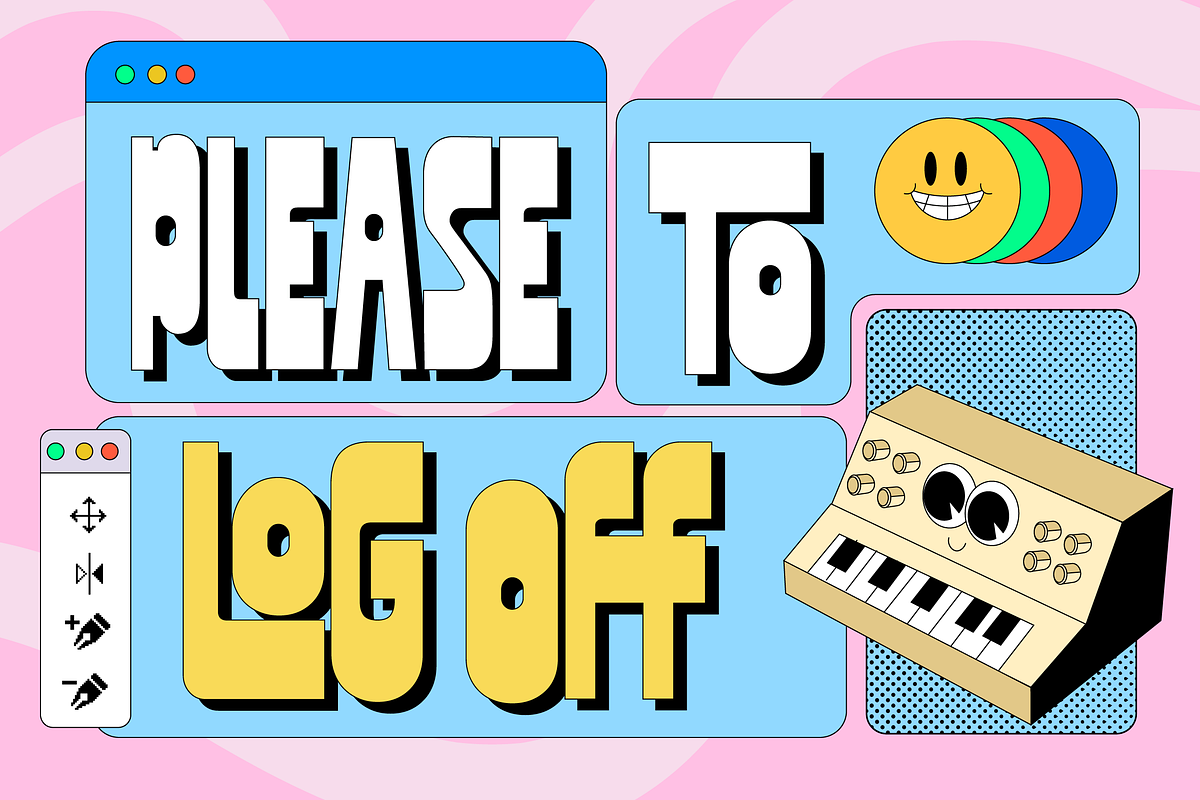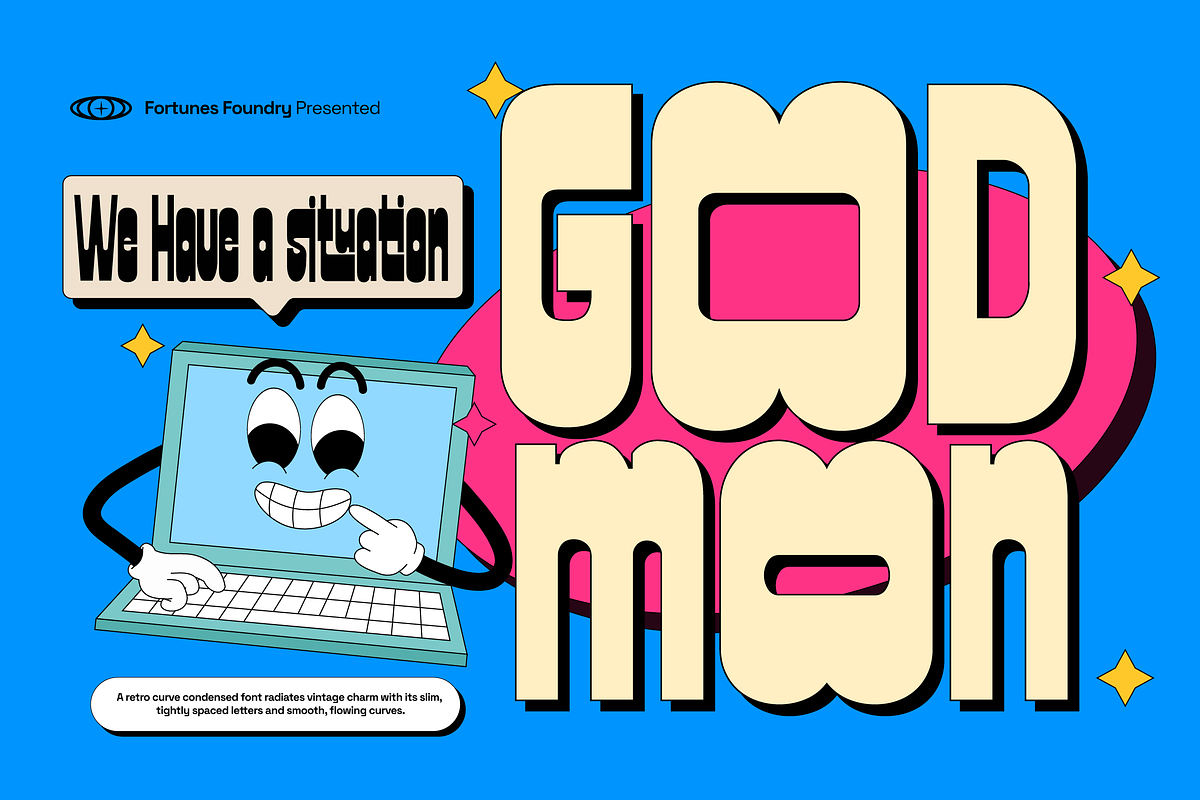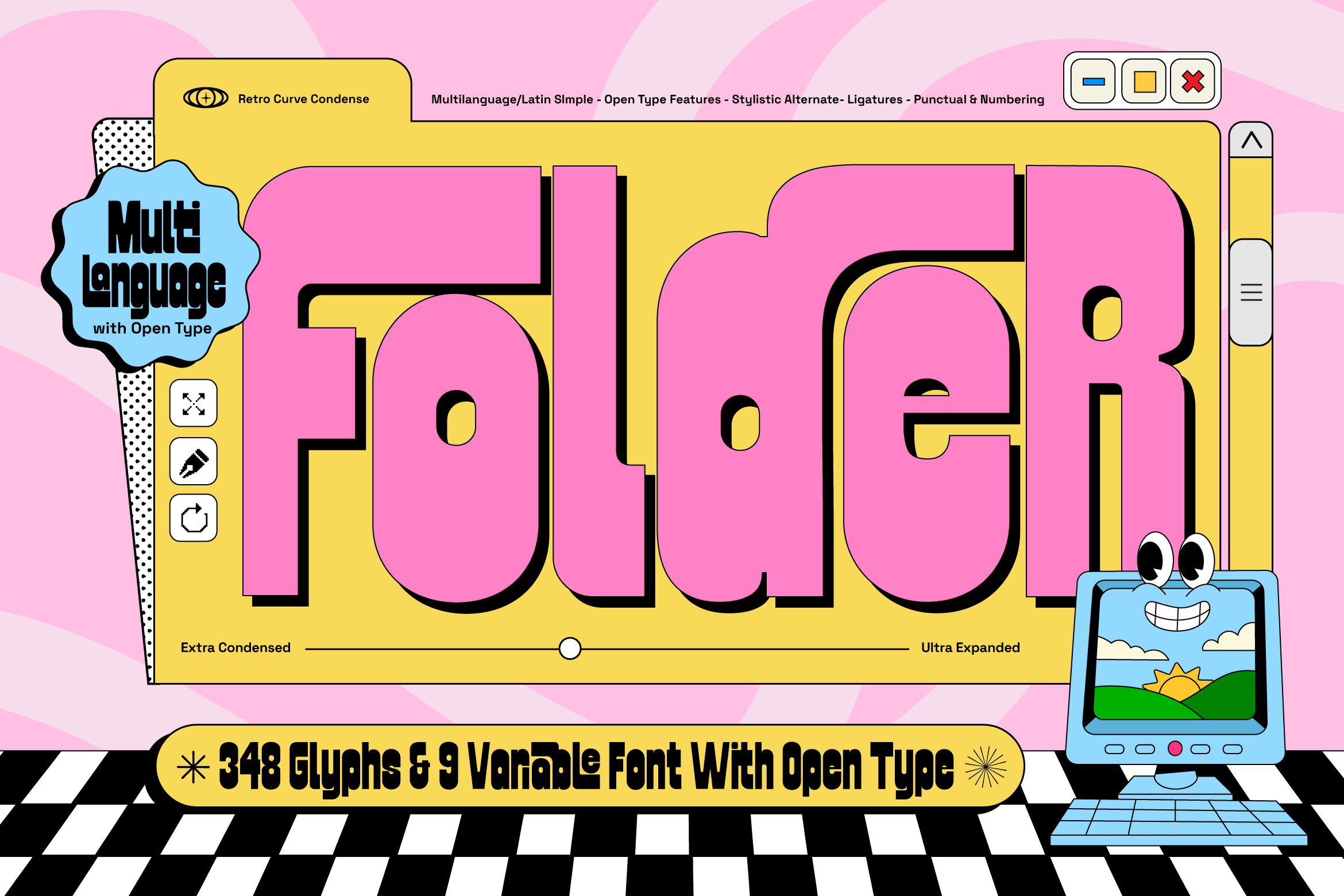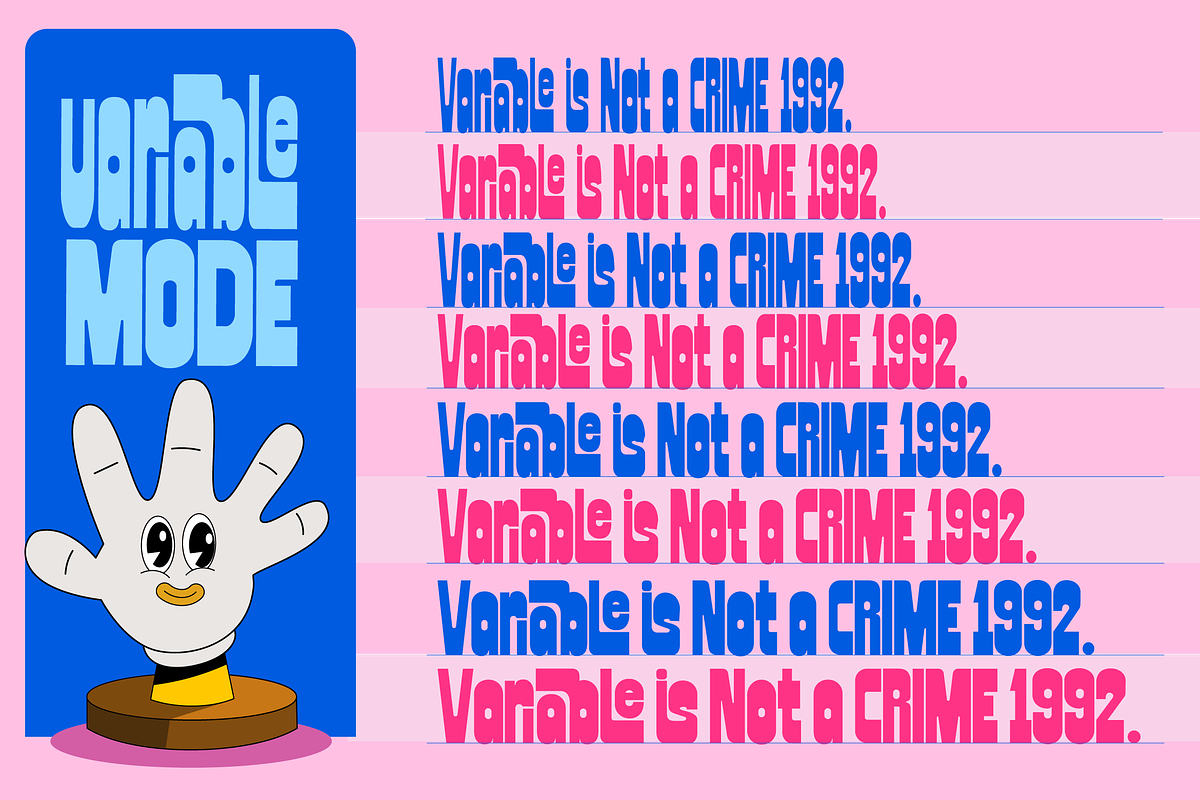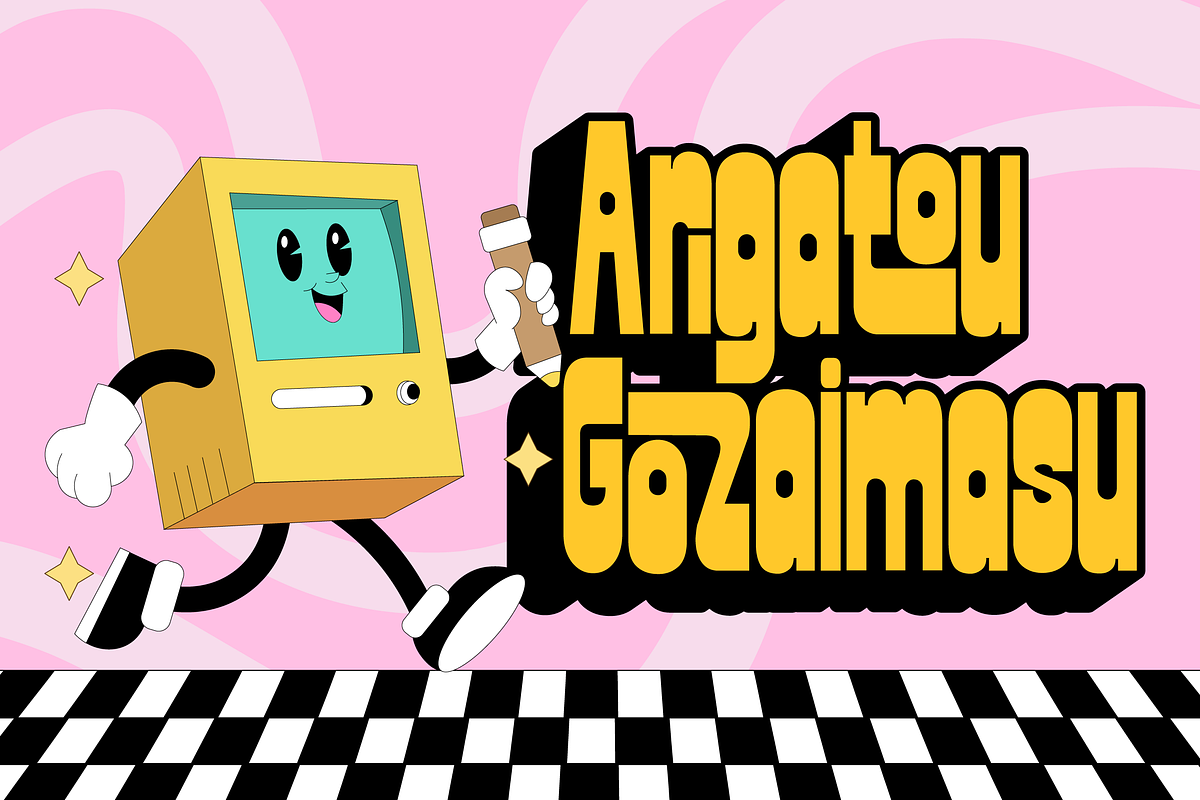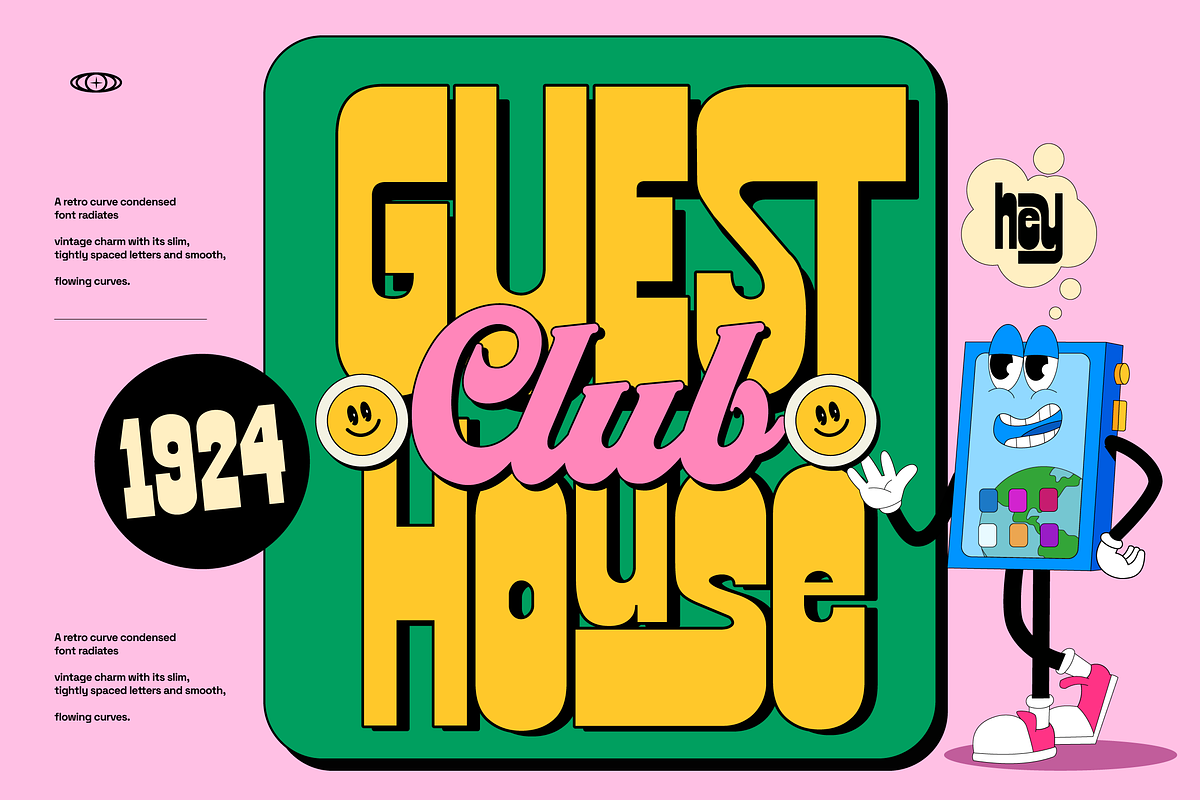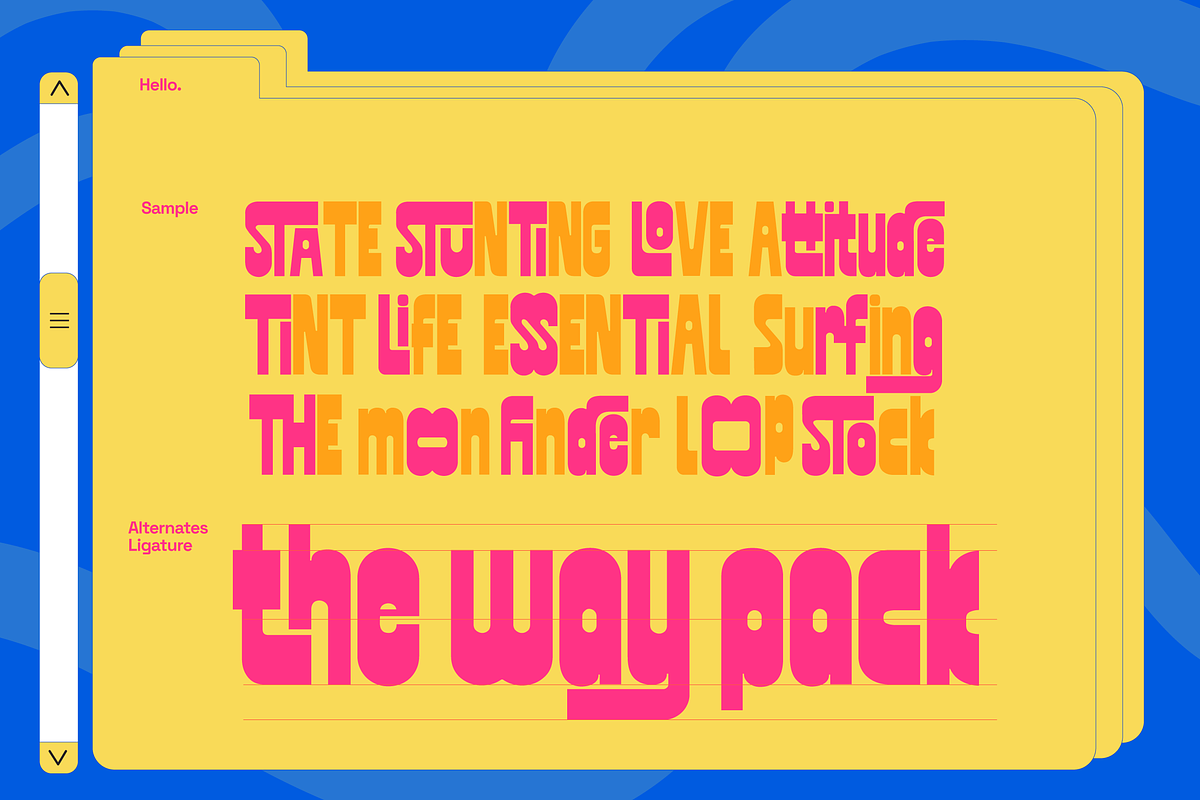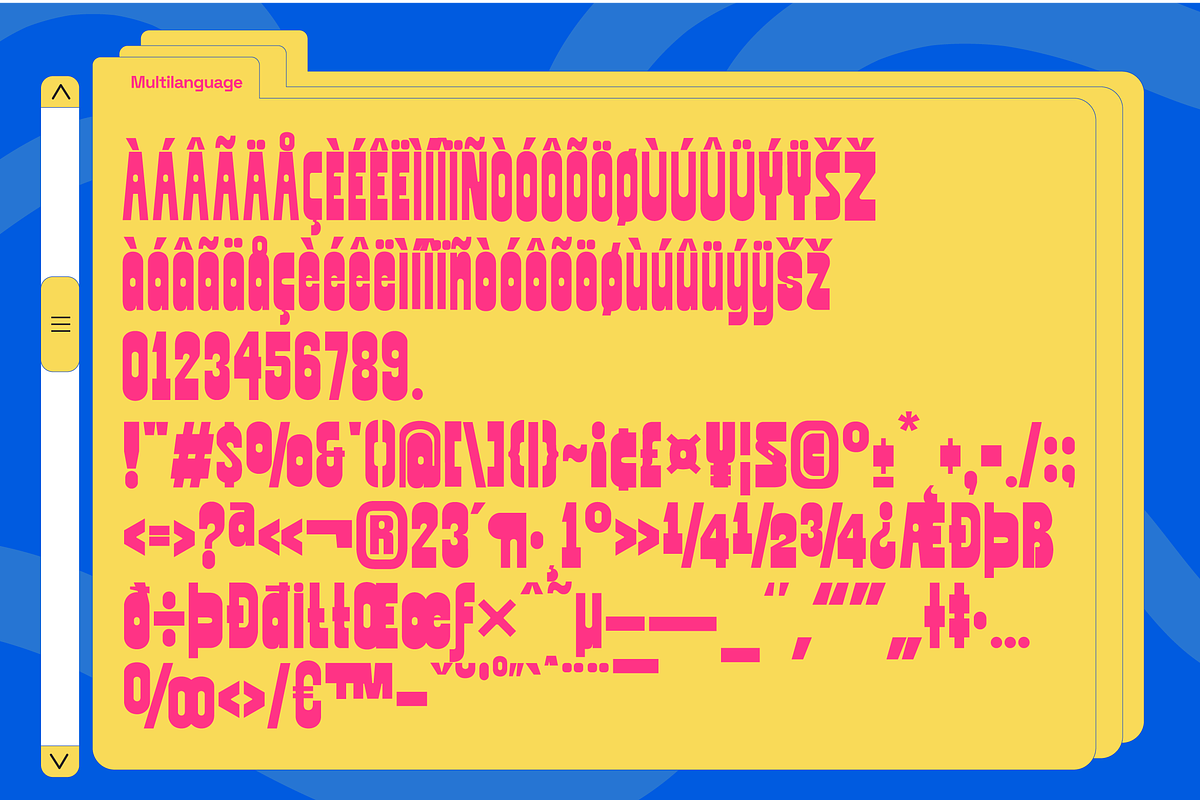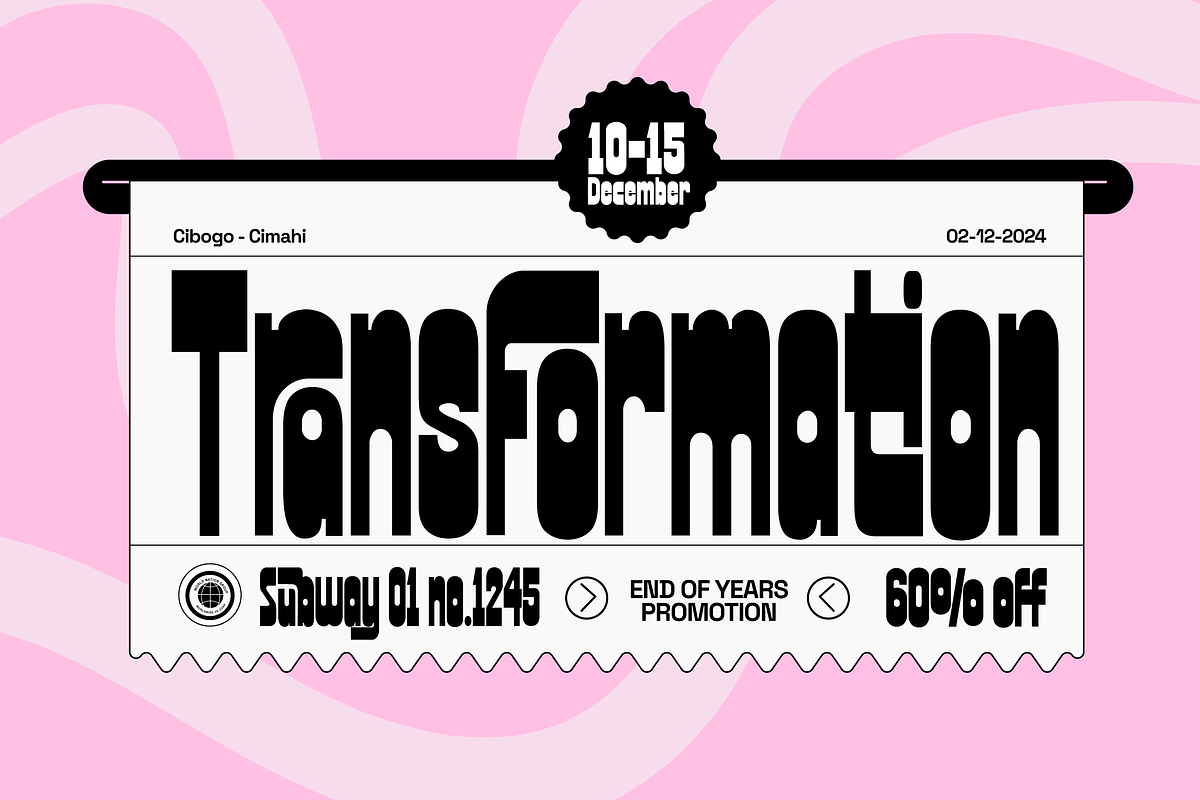
Fd Folder Retro Variable Font
A retro curve condensed font with round corners embodies a nostalgic charm, blending vintage aesthetics with modern simplicity. Its condensed letterforms save space while maintaining legibility, making it ideal for bold headlines and stylish posters.
The smooth, rounded corners add a soft, approachable feel, evoking warmth and playfulness. Perfect for retro-themed designs, this font channels the essence of mid-century style, with sweeping curves and streamlined shapes reminiscent of classic signage, advertisements, and packaging. Its unique balance of compact structure and flowing lines ensures versatility, seamlessly adapting to both digital and print media, giving designs a timeless yet trendy appeal.
- Lowercase & Uppercase
- Multilanguage Support (Latin Simple)
- Numbering
Ligatures : ꝏ ii ta ST TI TL TT To it Li iti STA SS STI LO ifi STO STU tt fo FF EE FI rf TH HT fi de ze te ay OO is ra la ff st Ch Lu STa STe St Ti ab ah ak az cb ch ci cr ct cu cy ek ey ez ib ih ik ist iy ke ki ku le li lo oh ok os oy oz re rg ri rj ro ru ry si ss tc th ti tm tn to tu ty ub uh uk us uy uz za zi zo zu